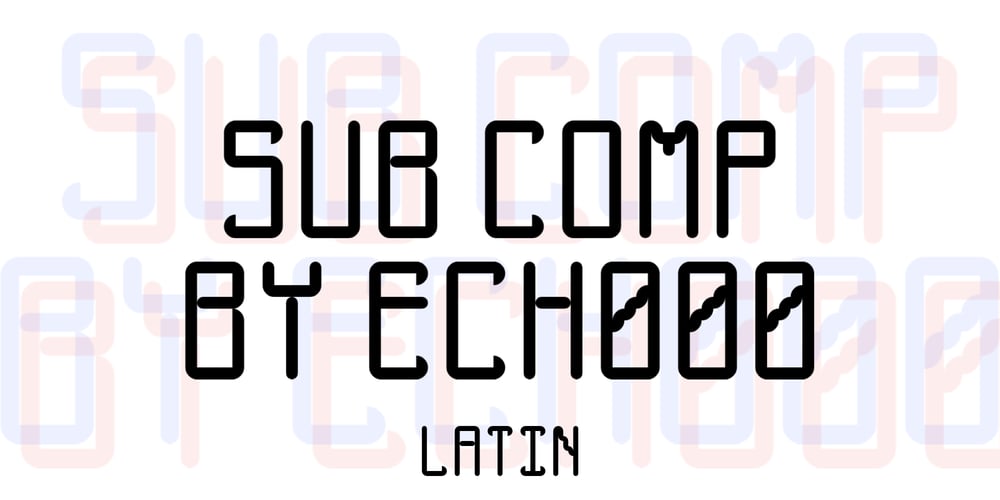
Sub Comp Font Family was designed by Seyfullah TEMIZ and published by Ech000. Sub Comp contains 1 styles and family package options. SubComp is a carefully constructed font made with over 160+ individual glyphs for English and some Latin based languages. This font is inspired by old fashioned computer and programming fonts with a unique twist to the lettering. Features characters or glyphs for Basic Latin, Some Extended Latin Characters, Some Greek, Some Coptic. Created for web, poster, graphic design, social media and branding.